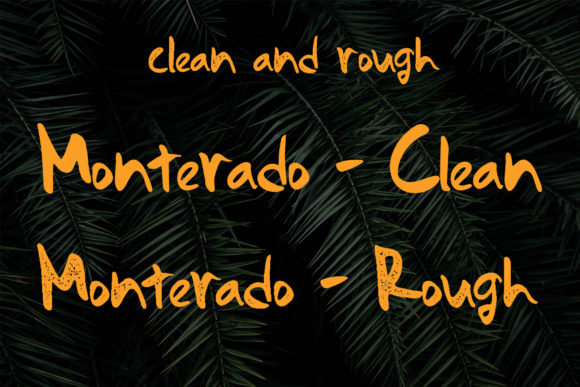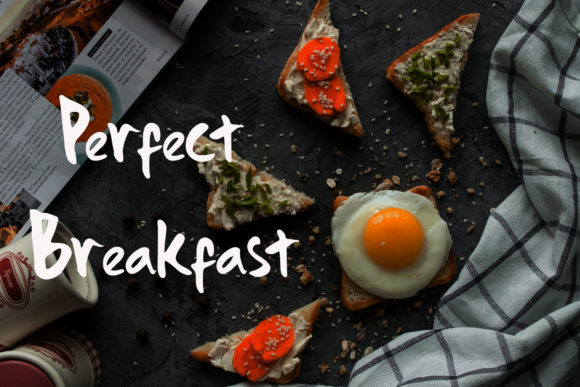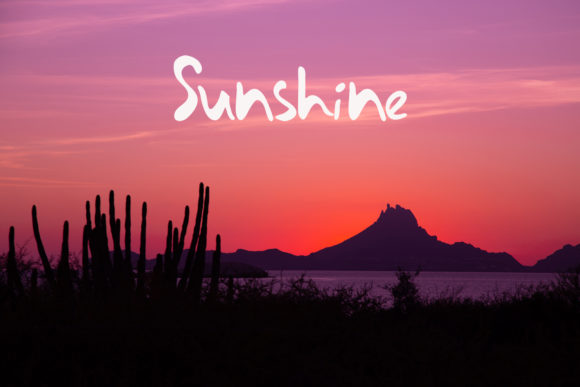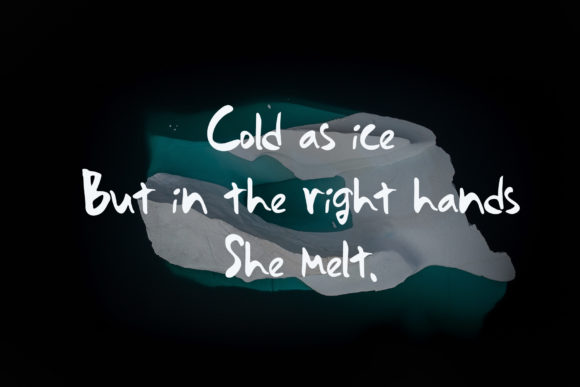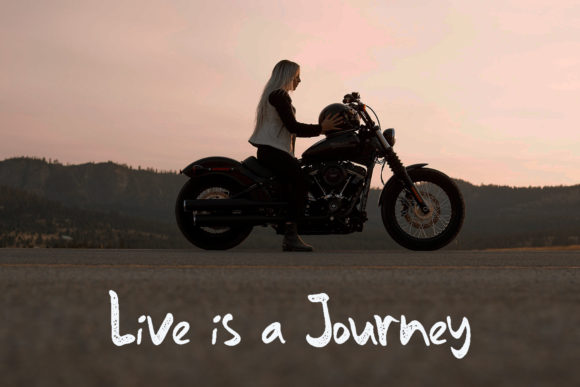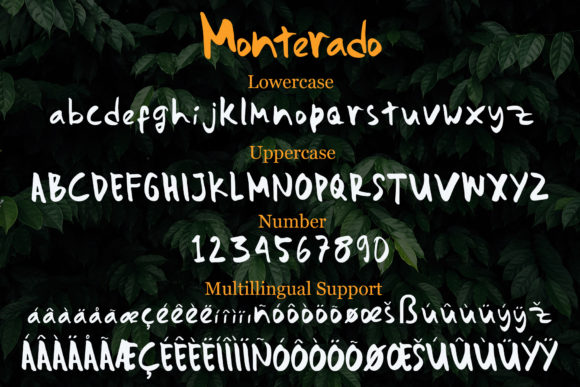
Introduction to Monterado Font
Monterado is a raw, authentic brush font that blends traditional influences into a contemporary aesthetic.
Its well balanced Latin details contain distinctive contrasts Use Monterado to achieve an exquisite, yet subtle look and maximum versatility.
Key Features of Monterado Font